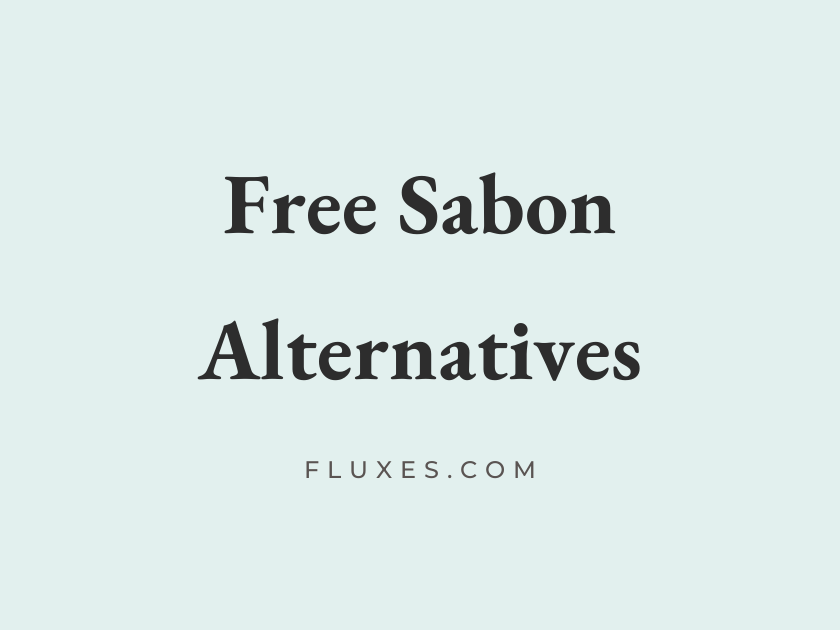
14 Best Free Fonts Alternatives to Sabon
Sabon has long been a favorite for book typesetting, wedding stationery, and editorial work because of its warm, old-style proportions and the quiet authority Jan Tschichold built into every letterform. Finding a free alternative means looking for fonts with similar Garamond-rooted structure: moderate contrast, humanist warmth, and text that stays legible and inviting at book size. Google Fonts has matured enough in recent years that several families now capture that same old-style character without licensing fees.
Set in the spirit of Renaissance printing traditions
This is the most direct relative on the list, drawn from the same sixteenth-century Garamond punches that inspired Sabon itself. It carries that same delicate, slightly irregular warmth in its curves, making it a natural substitute anywhere Sabon was chosen for its historical pedigree. Long-form book text, scholarly publishing, and literary websites all benefit from its restrained elegance.
Elegant lines for invitations and refined headlines
Cormorant Garamond takes the old-style Garamond skeleton and stretches it into something more jewel-like and delicate. It shines at display sizes, on invitations, editorial pull quotes, or fashion headlines, but it can feel too thin and fragile for dense paragraphs. Pair it with a sturdier text serif for body copy.
Chapters that read comfortably from page to page
Built specifically for book typography, Crimson Pro shares Sabon’s calm rhythm and even color across a paragraph. It has a slightly more contemporary finish than true revivals, which makes it a comfortable choice for ebooks, essays, and long-form web articles that need to feel literary without seeming antique.
Designed for screens without losing old-style charm
Spectral was commissioned with screen reading in mind, so it holds up remarkably well in the small sizes where many old-style serifs turn muddy. Its sturdier strokes and open counters give it a confident, modern-editorial feel while still nodding to the same humanist tradition Sabon came from.
Versatile serif text for reports and articles
Adobe’s Source Serif 4 is workmanlike in the best sense: even color, generous x-height, and enough personality to feel considered rather than default. It pairs naturally with Source Sans if you need a matching sans for interfaces or captions, and it handles everything from annual reports to blog posts without complaint.
Warm text for stories, letters, and long reads
Lora has a slightly calligraphic undercurrent in its curves that gives it real warmth on the page. It has become a dependable workhorse for blogs and publishing platforms precisely because it reads comfortably at body copy sizes while still carrying a bit of personality in italics.
A sturdy German book serif for quiet pages
Vollkorn was designed in Germany specifically for book typesetting, and it shows in its restrained, unfussy letterforms. It lacks some of Sabon’s refinement at large display sizes, but as a workhorse text face for novels, academic papers, or documentation, it is hard to fault.
A literary voice for novels and long essays
Alegreya was created for extended reading, with a calligraphic rhythm that gives paragraphs a lively, almost handwritten cadence. It suits literary magazines, poetry collections, and narrative nonfiction especially well, where a text face is expected to carry emotional tone as well as words.
Classical serif for scholarly and formal writing
Cardo was built for classicists and academic typesetting, so its old-style structure and generous diacritic support make it a natural fit for scholarly journals, historical reprints, or any project that leans on Sabon’s formal, book-trade heritage. It is less suited to punchy display use; its personality is deliberately understated.
Gelasio
A dependable serif for business documents
Gelasio
Gelasio was engineered as a metrically compatible alternative to a well-known commercial serif, which makes it unusually reliable for documents, reports, and interfaces where text reflow matters. It is plainer than Sabon in spirit but shares that same sense of dependable, old-style legibility.
Libre Caslon Text
Time-tested letterforms for print-inspired pages
Libre Caslon Text
Caslon and Garamond sit in the same old-style family tree, and Libre Caslon Text brings that lineage to the web with crisp, confident strokes optimized for text sizes. It works particularly well on editorial sites that want a print-magazine feel in the body copy, with its bold and italic styles holding up cleanly in headlines and captions alike.
Comfortable reading across devices and screens
Merriweather was drawn with screen legibility as a priority, giving it sturdier serifs and a slightly condensed width compared to Sabon. That makes it a safe, popular choice for blogs and news sites where reading happens mostly on phones and tablets rather than the printed page.
If your project will be read mostly on screens, favor Spectral, Merriweather, or PT Serif, which were built with screen rendering in mind.
For anything historical, academic, or heavily italic, Cardo or EB Garamond will feel closest to Sabon’s original character.
Any of these free Google Fonts can step in for Sabon without asking readers to notice the substitution, which is really the highest compliment an old-style serif can earn.